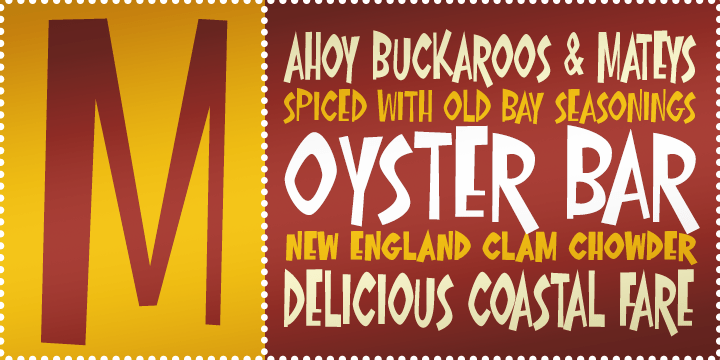
Oyster Bar
Oyster Bar BTN is a fun, playful display family with a lanky beachside personality. Its narrow, offbeat structure gives it a quirky charm that feels casual, breezy, and full of character, making it a strong fit for signage, posters, restaurant branding, beach-themed graphics, packaging, and cheerful headline work. The family's mix of regular, condensed, and expanded styles adds flexibility for creating layouts that can feel either tight and punchy or broad and attention-grabbing. Oyster Bar BTN brings a lighthearted coastal vibe to designs that want to feel playful, slightly unusual, and full of sunny attitude.